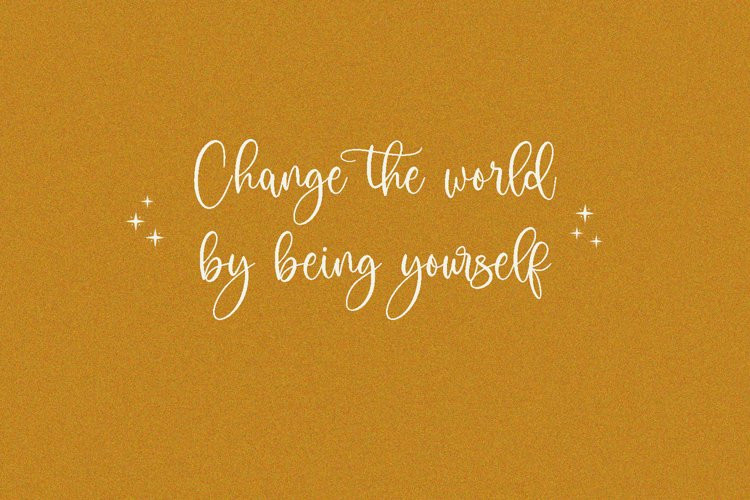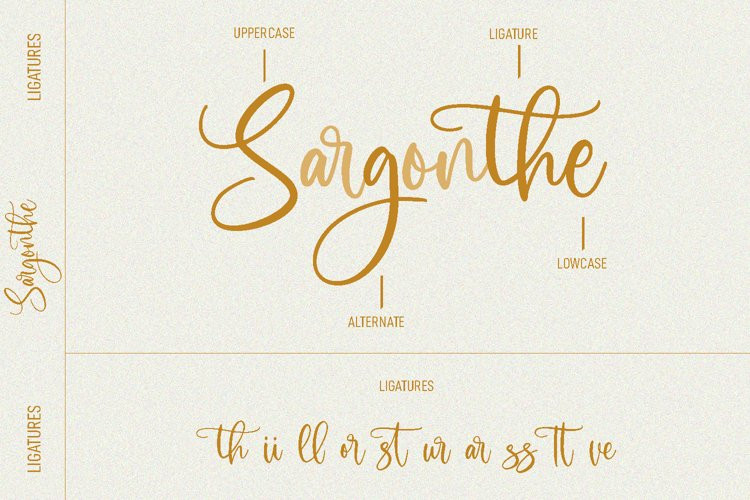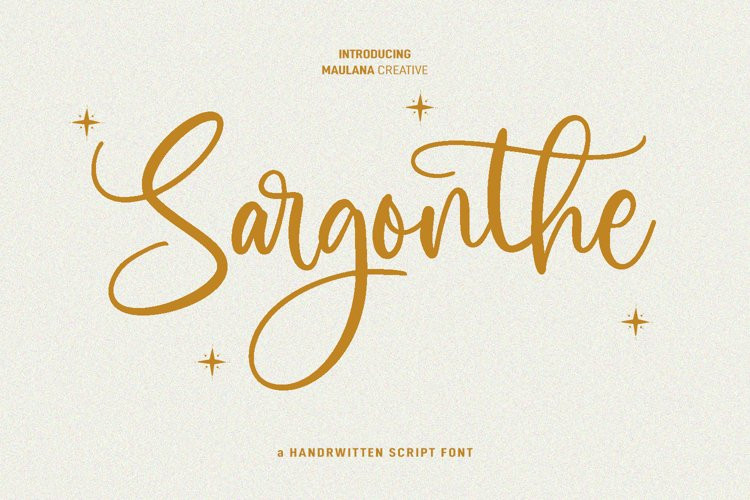
Sargonthe Font
Sargonthe FontSargonthe is a casual handwritten script font. With medium contrast stroke, fun character with a bit of ligatures and alternates. To give you an extra creative work. Sargonthe font support multilingual more than 100+ language. This font is good for logo design, Social media, Movie Titles, Books Titles, a short text even a long text letter and good for your secondary text font with sans or serif. Make a stunning work with Sargonthe font.